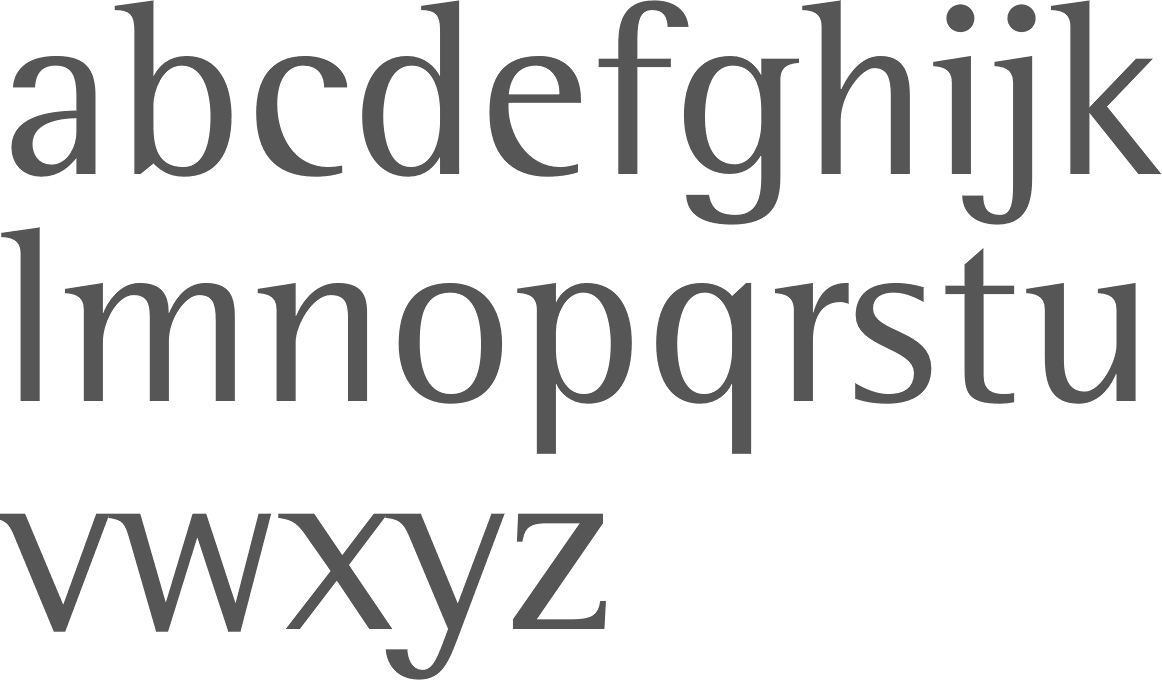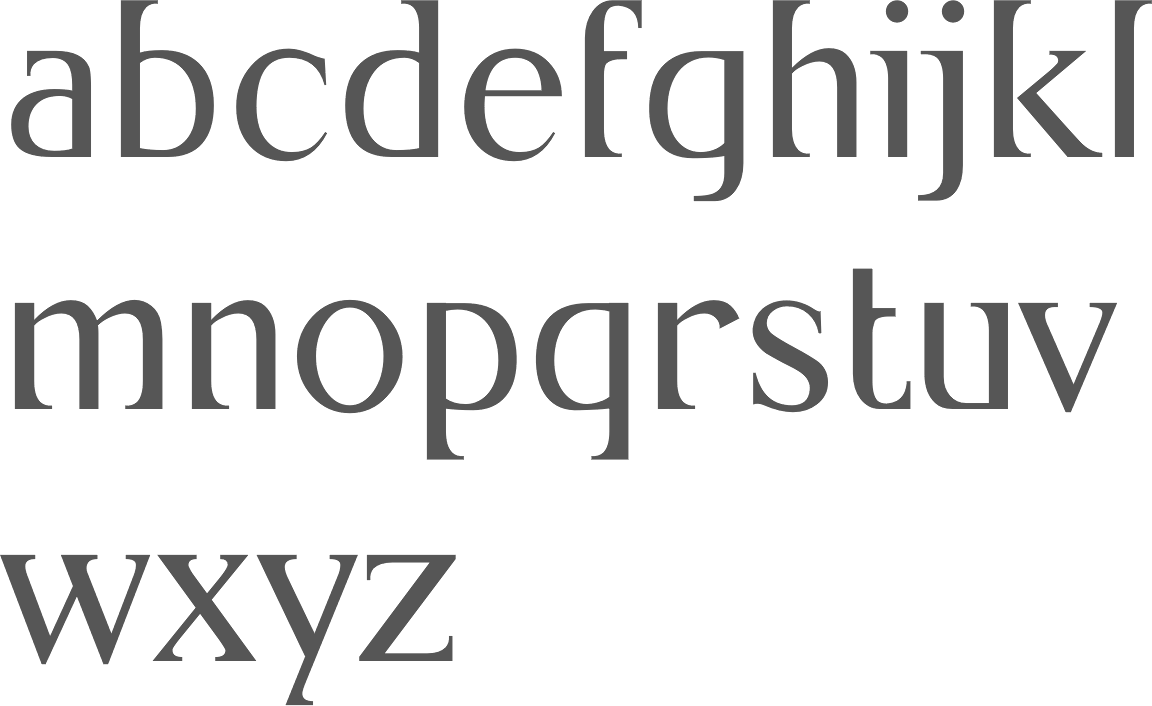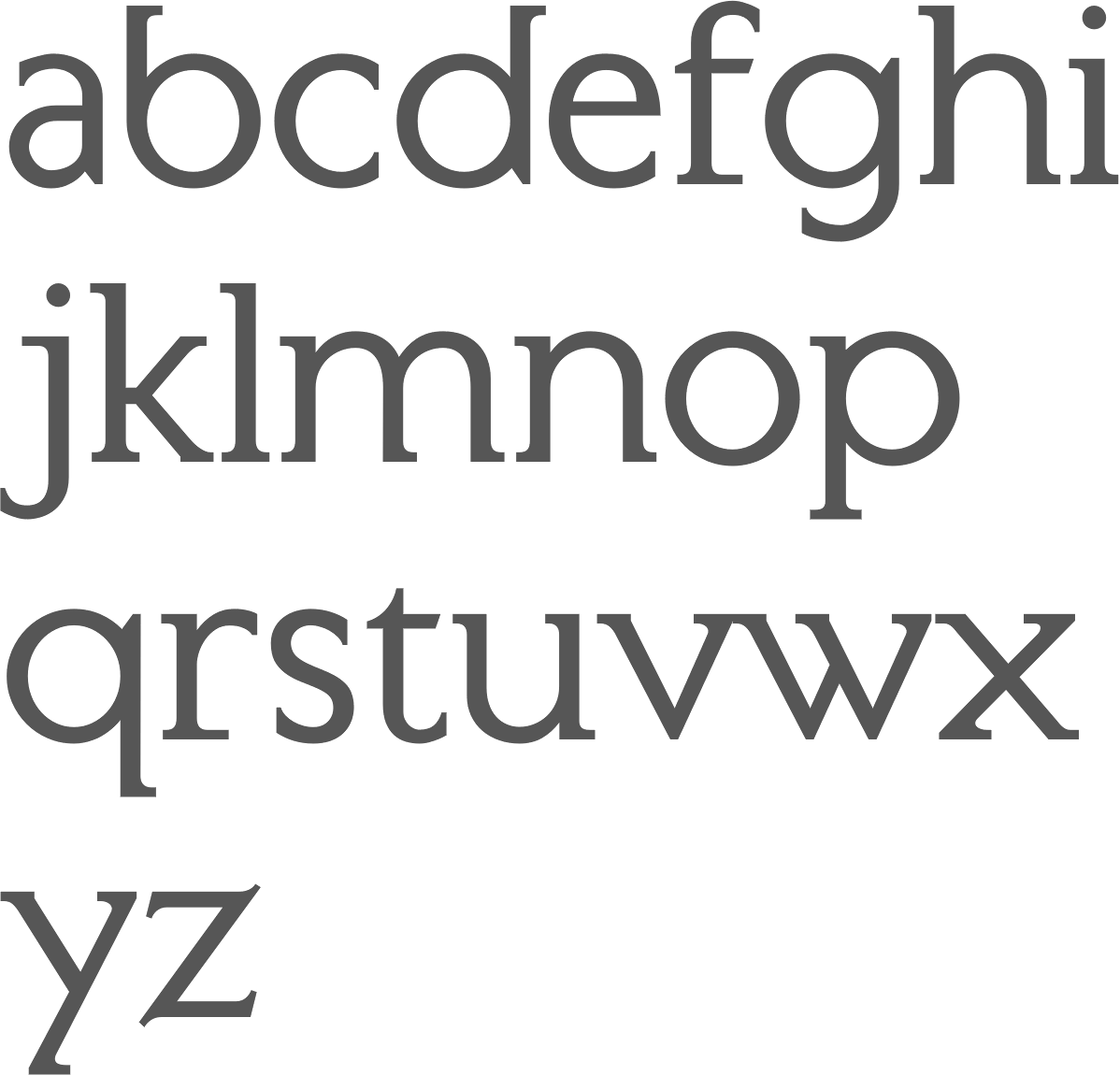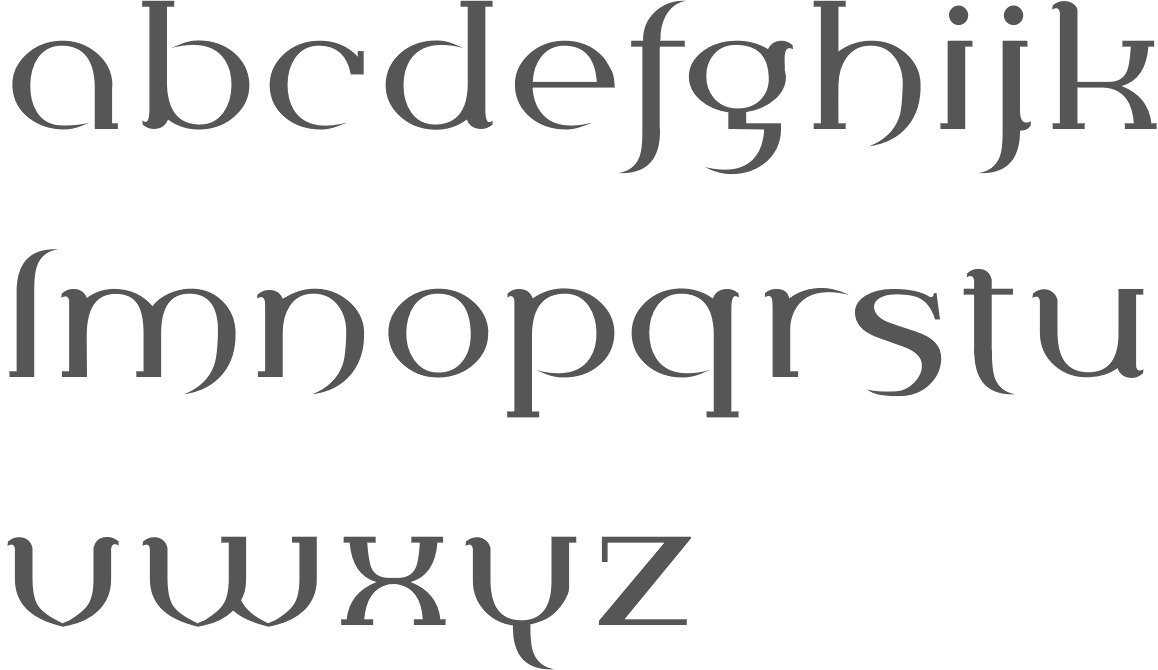
The Rise Of Semi-Serif Fonts In 2023
What are Semi-Serif Fonts?
Semi-serif fonts are a type of typeface that is a combination of both serif and sans-serif elements. They are usually used as a way to add a bit more personality to a design without using a more traditional serif font. Semi-serif fonts can be used for titles, headings, subtitles, and body text. They are also popular for creating logos, icons, and other graphic elements.
Why Semi-Serif Fonts are Popular in 2023
In 2023, more and more designers are using semi-serif fonts for their projects. This is because semi-serif fonts can add personality to a design without being overbearing. They are also versatile and can be used for a variety of project types. Furthermore, they are easy to read and can be used to create a modern, contemporary look.
Examples of Semi-Serif Fonts
A few popular examples of semi-serif fonts in 2023 include Futura PT, Apercu, and FF Meta Serif. These fonts are all very versatile and can be used for a variety of projects. They also have a modern, contemporary look that is perfect for creating logos, icons, and other graphic elements.
Tips for Using Semi-Serif Fonts
When using semi-serif fonts, it is important to ensure that the font is legible. This means that the font should be large enough to be easily read. Additionally, the font should not be too small as it will be difficult to read. It is also important to ensure that the font is not too ornate or busy as this can make it difficult to read. Finally, it is important to ensure that the spacing between the letters is appropriate and that the font has good kerning.
The Benefits of Semi-Serif Fonts
The main benefit of semi-serif fonts is that they are versatile and can be used for a variety of projects. They are also easy to read and can be used to create a modern, contemporary look. Furthermore, they can add personality to a design without being overbearing. Finally, they are becoming increasingly popular in 2023 as more and more designers are using them for their projects.